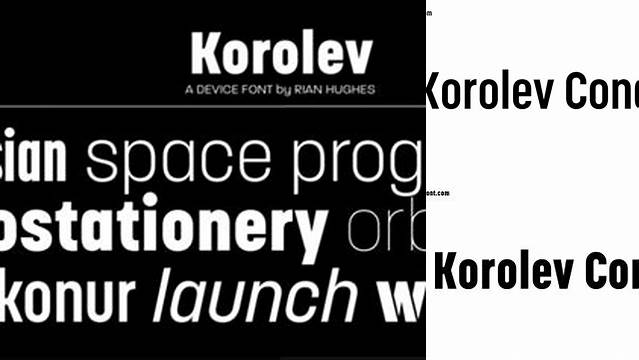
Hey guys, let's dive into the awesome world of fonts! Specifically, we're gonna explore the Korolev Condensed Alternates Medium font. It's a real looker, and the best part? You can get it for free! In this article, we'll cover everything: where to download it safely, how to use it, and some cool design ideas. Ready to jazz up your designs? Let's go!
Korolev Condensed: A Deep Dive into This Stylish Font
So, what's the deal with Korolev Condensed? It's a modern, condensed typeface that's super versatile. The 'condensed' part means the letters are squished together, making it great for headlines and situations where you need to fit a lot of text in a small space. The 'alternates' refer to different versions of some characters – little tweaks that add extra style and personality. The 'medium' refers to the font weight, which is a balanced thickness, easy to read without being too heavy or light. Overall, Korolev Condensed is a sleek, clean font that's perfect for a wide range of projects, from website headers to posters and everything in between. You'll find that Korolev Condensed is a fantastic choice for making a statement. Its design allows for both readability and impact, making it a favorite among designers.
The font's design is clean and modern, with a focus on geometric shapes and sharp lines. This gives it a contemporary feel that works well in both digital and print media. Whether you're designing a website, creating social media graphics, or working on a print project, Korolev Condensed can help you achieve a polished and professional look. Plus, its condensed nature means you can use it in tight spaces without sacrificing readability. The different alternates available add subtle variations, allowing you to create a unique and eye-catching design. Choosing the right font can significantly impact the overall look and feel of your design, and Korolev Condensed offers a great balance of style and functionality. The font is also very readable, making it ideal for headlines and short paragraphs.
Think about how a well-chosen font can elevate your brand's visual identity. Korolev Condensed can be a powerful tool for creating a memorable and cohesive brand presence. You can use it for your logo, website, marketing materials, and more. By consistently using the same font across all your channels, you create a sense of unity and professionalism that resonates with your audience. This is a great font for making things clear. It is a good option for making titles or small bits of text. It looks good on screens and when printed. You can customize the font too. Different weights and styles let you adjust it to whatever you need. It's a smart choice for many designs.